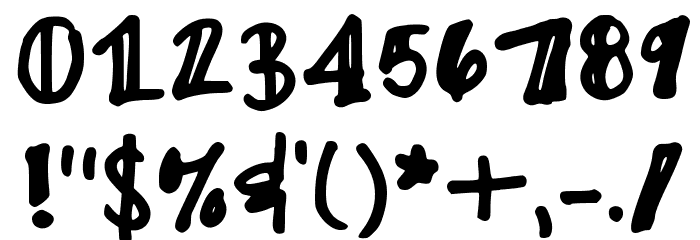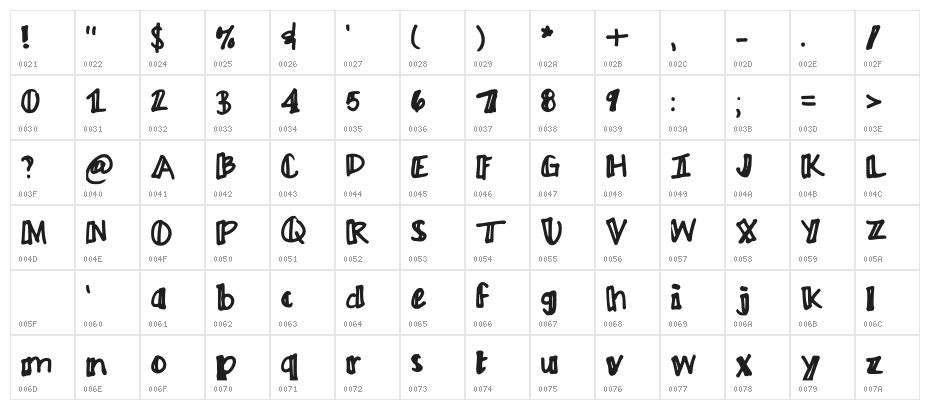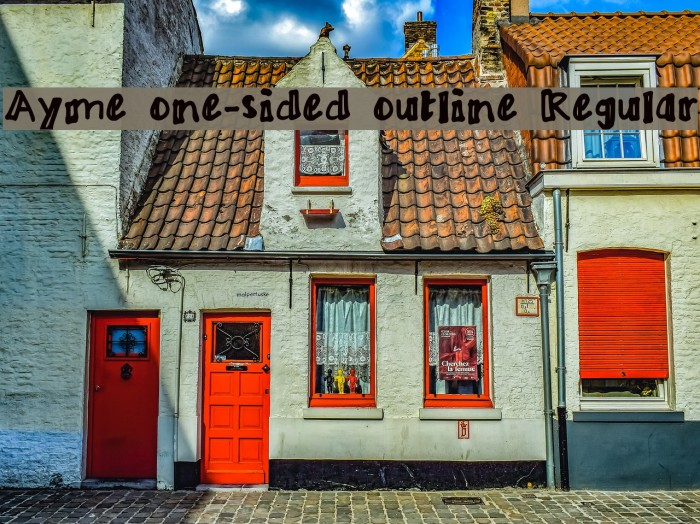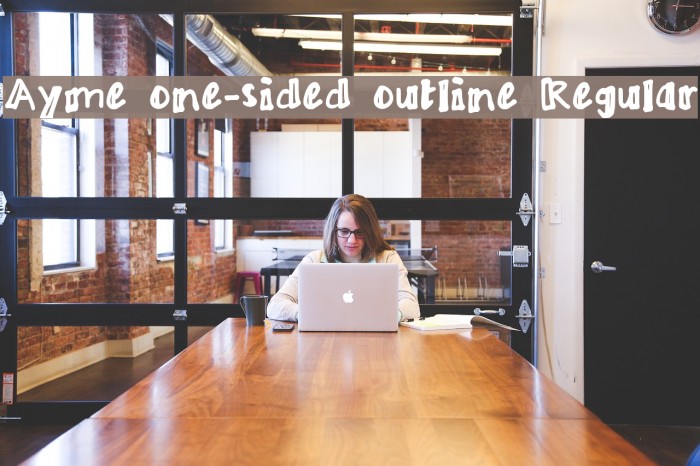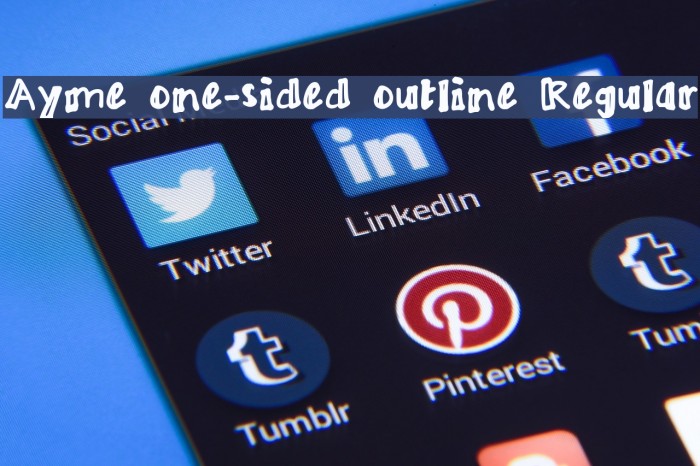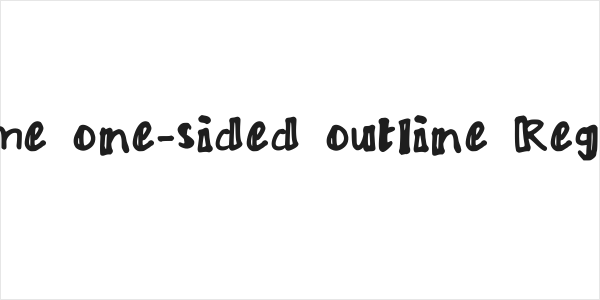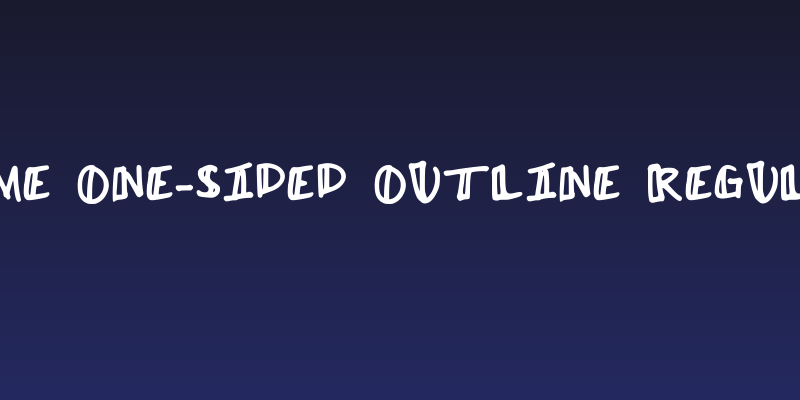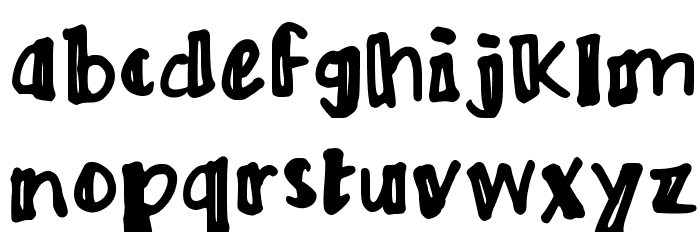
Ayme one-sided outline Regular Font
Ayme one-sided outline Regular Description
This font features a playful and bold style with an outline effect that gives it a unique, hand-drawn appearance. The characters are slightly irregular, adding to the casual and informal feel. The uppercase and lowercase letters maintain a consistent style, with rounded edges and a moderate width. The numbers and special characters follow the same design, ensuring a cohesive look across all elements. This font's distinctive outline and bold strokes make it stand out, ideal for creative and eye-catching designs.
| Overall Style | Playful, Hand-drawn |
| Proposed Projects | Ideal for children's books, playful branding, posters, and creative social media graphics. |